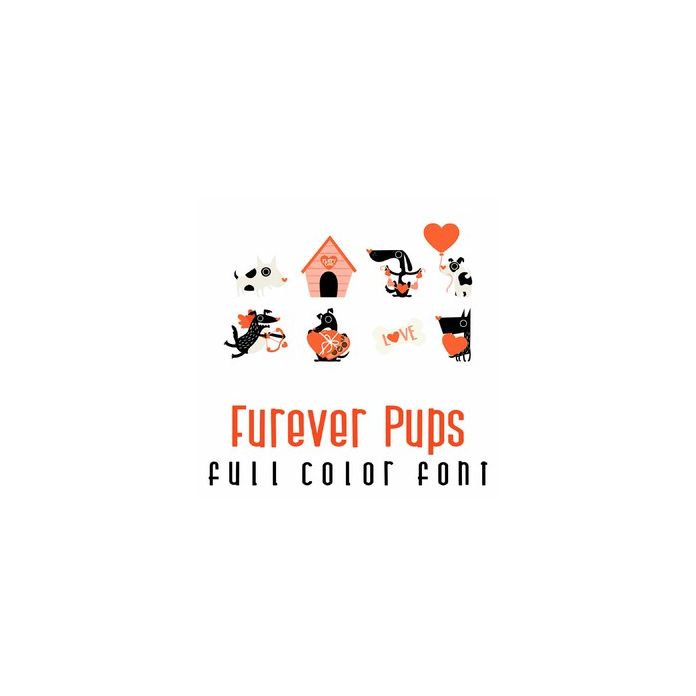
This adorable full-color doodlebat font features 26 puppies ready for love. Perfect for cards, crafts, gifts, decor, scrapbook pages, planner stickers, and more!